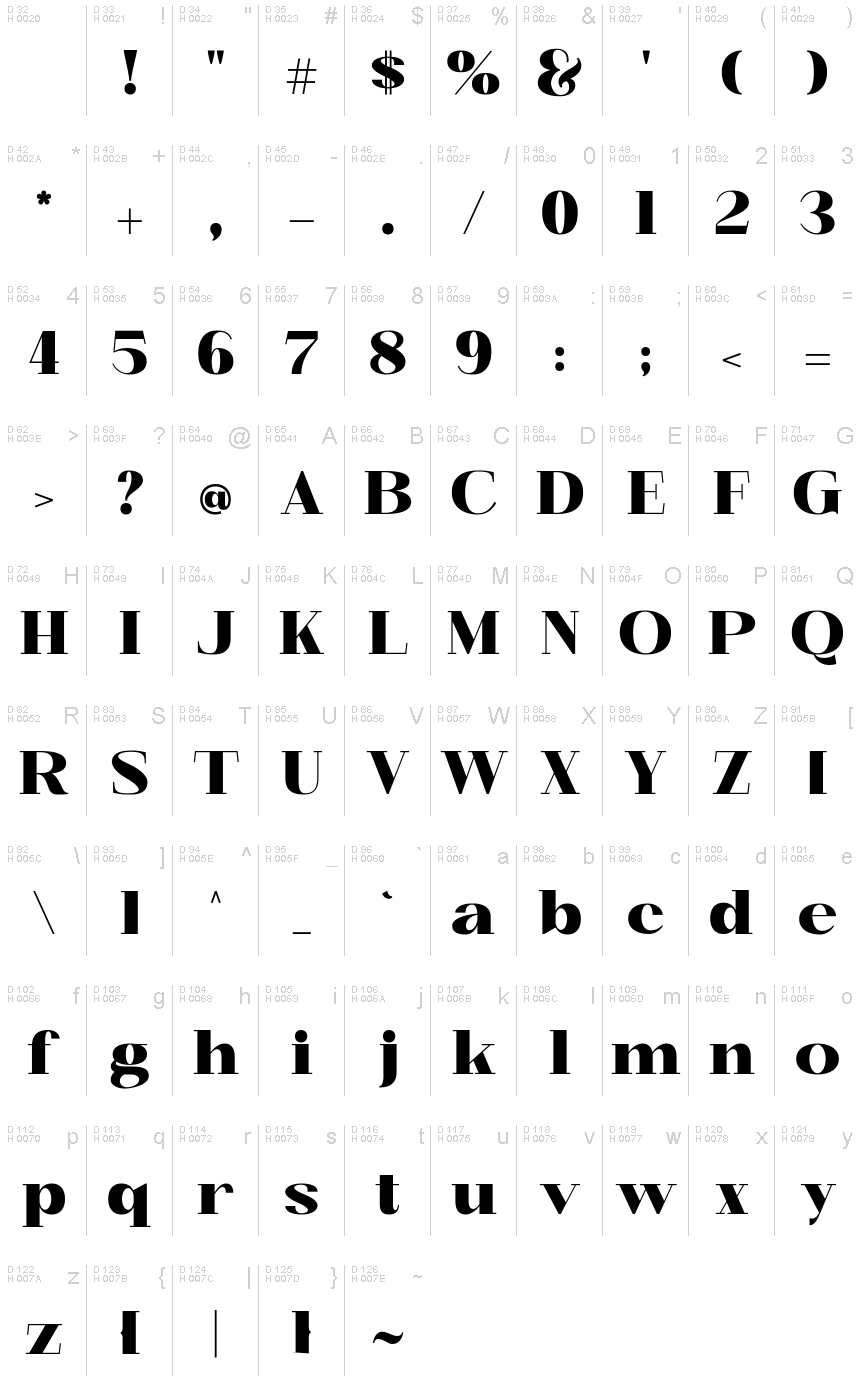
Kingkey Demo Black
Kingkey Black exudes a robust presence with its bold, expanded form that commands attention. Crafted by TypeClassHeroes, this member of the Kingkey family showcases the timeless elegance of serif fonts while making a contemporary statement. Its generous proportions paired with assertive serifs create a sense of grandeur and importance, perfect for headlines and branding where confidence is key.
The font's aesthetic appeal lies in its balance between classic refinement and modern boldness, making it versatile for various design contexts. Its stately appearance is well-suited for luxurious branding, editorial headings that need to stand out, or any project aiming to convey strength and sophistication. With Kingkey Black, your message will not whisper; it will resonate with authority.